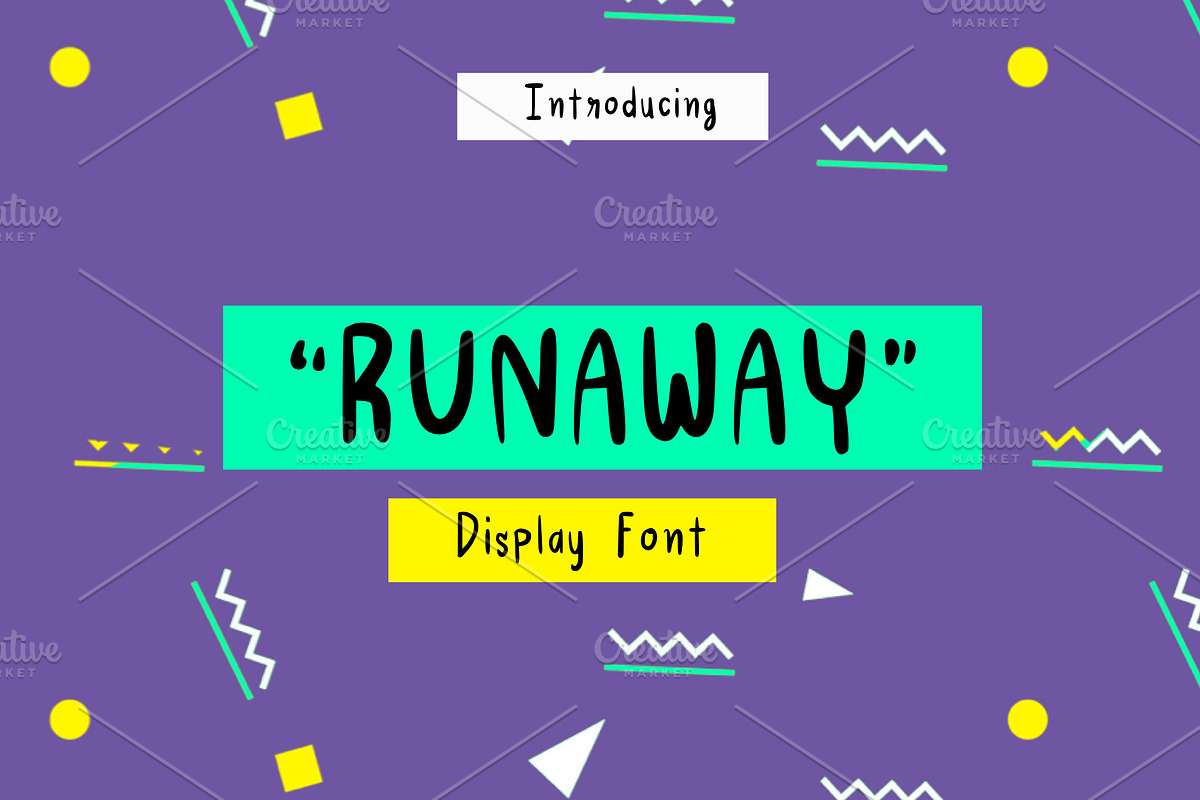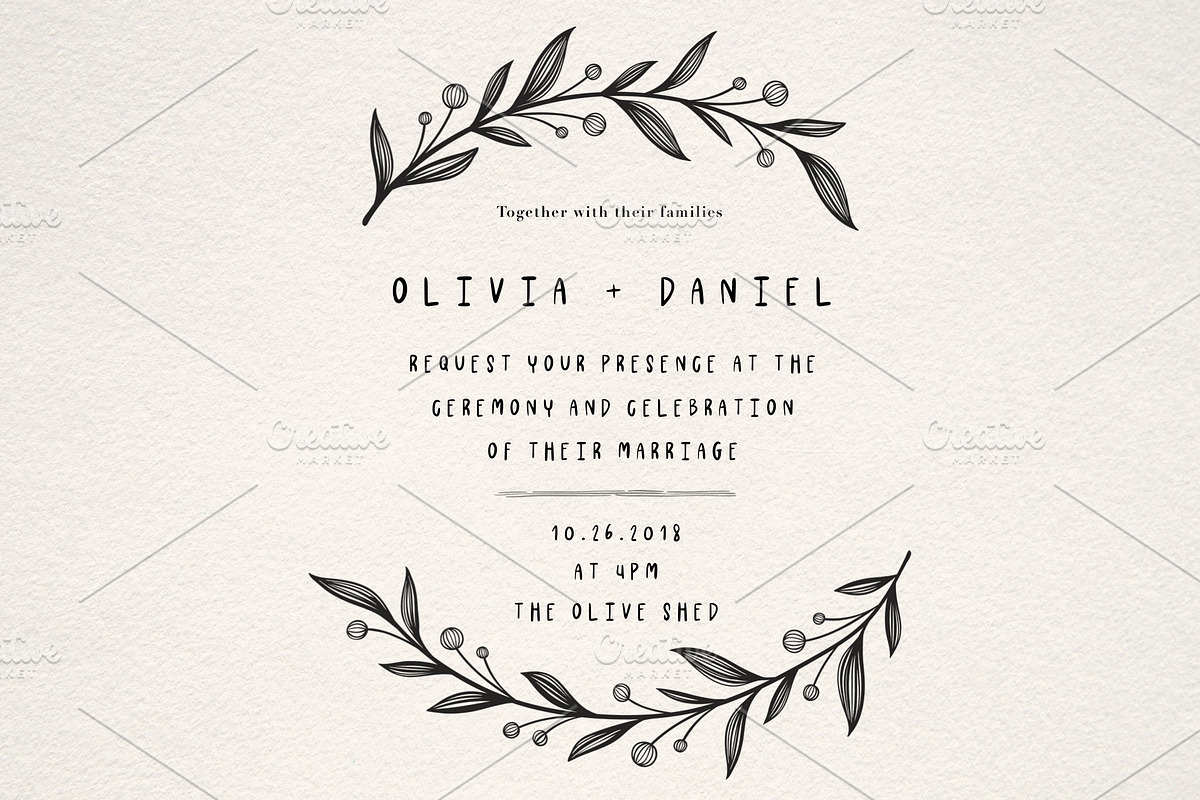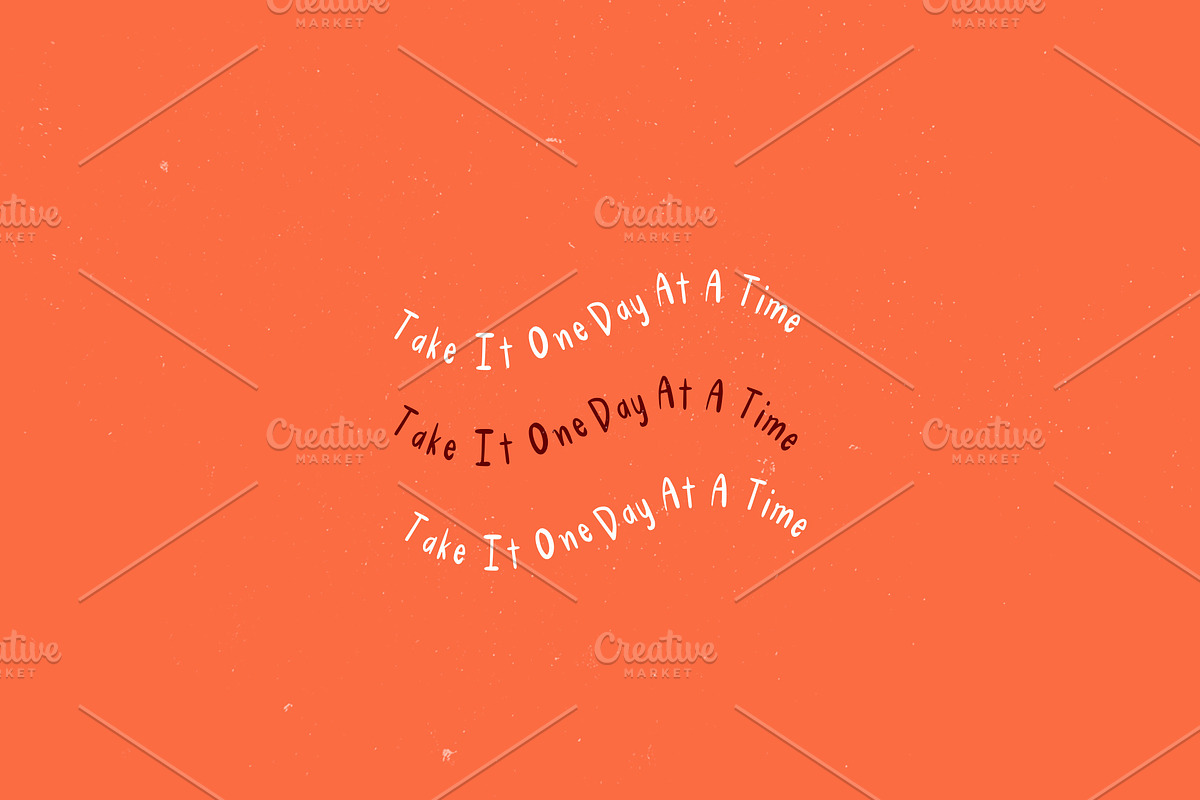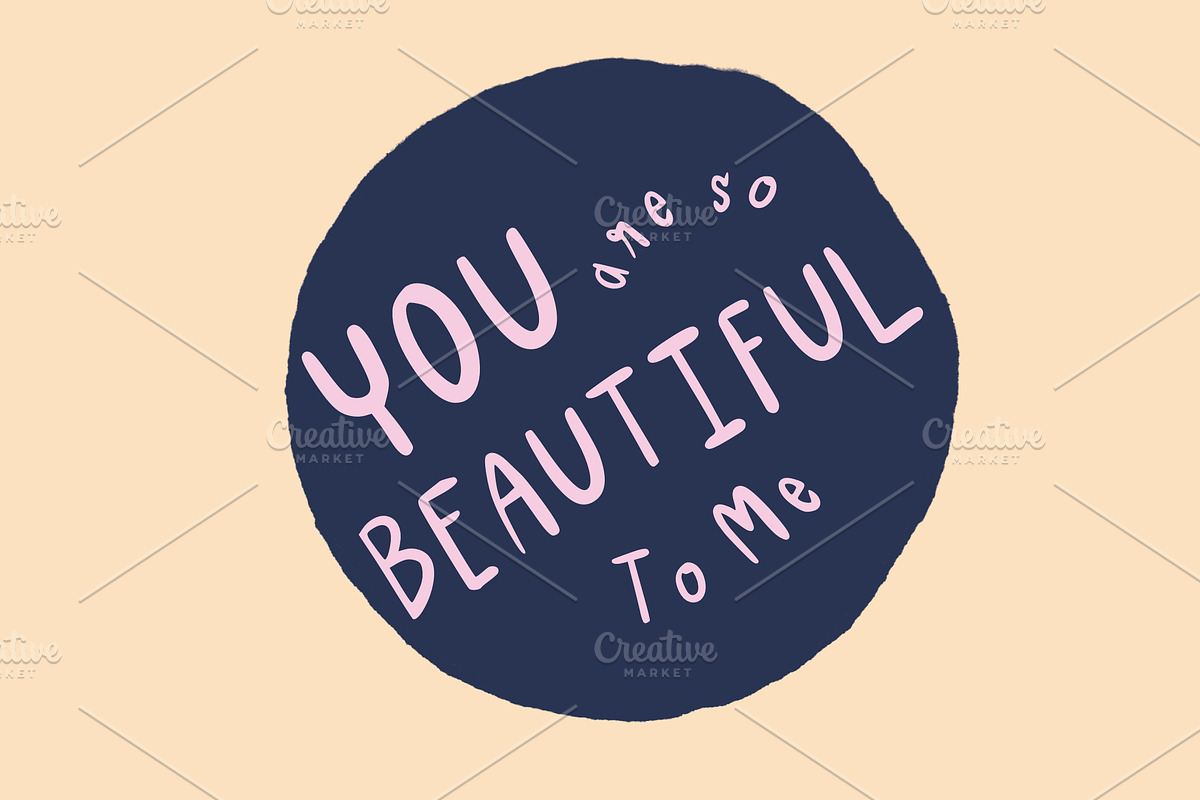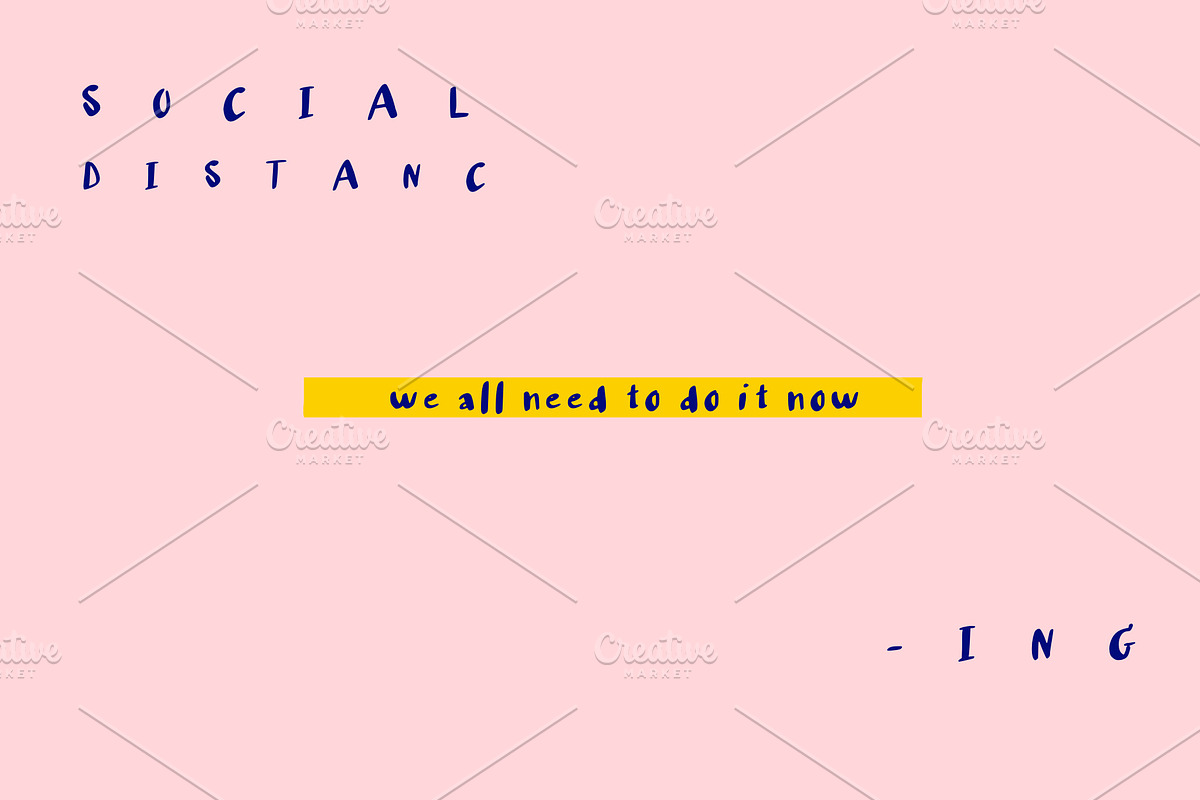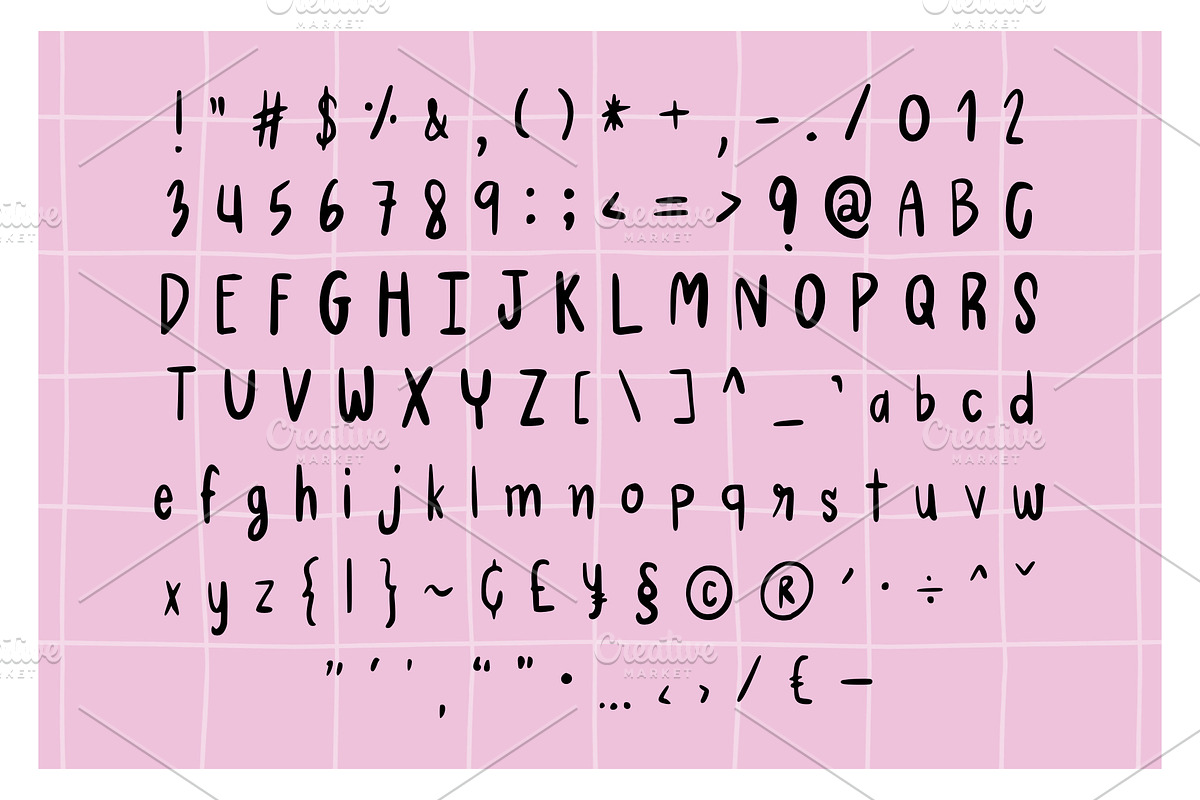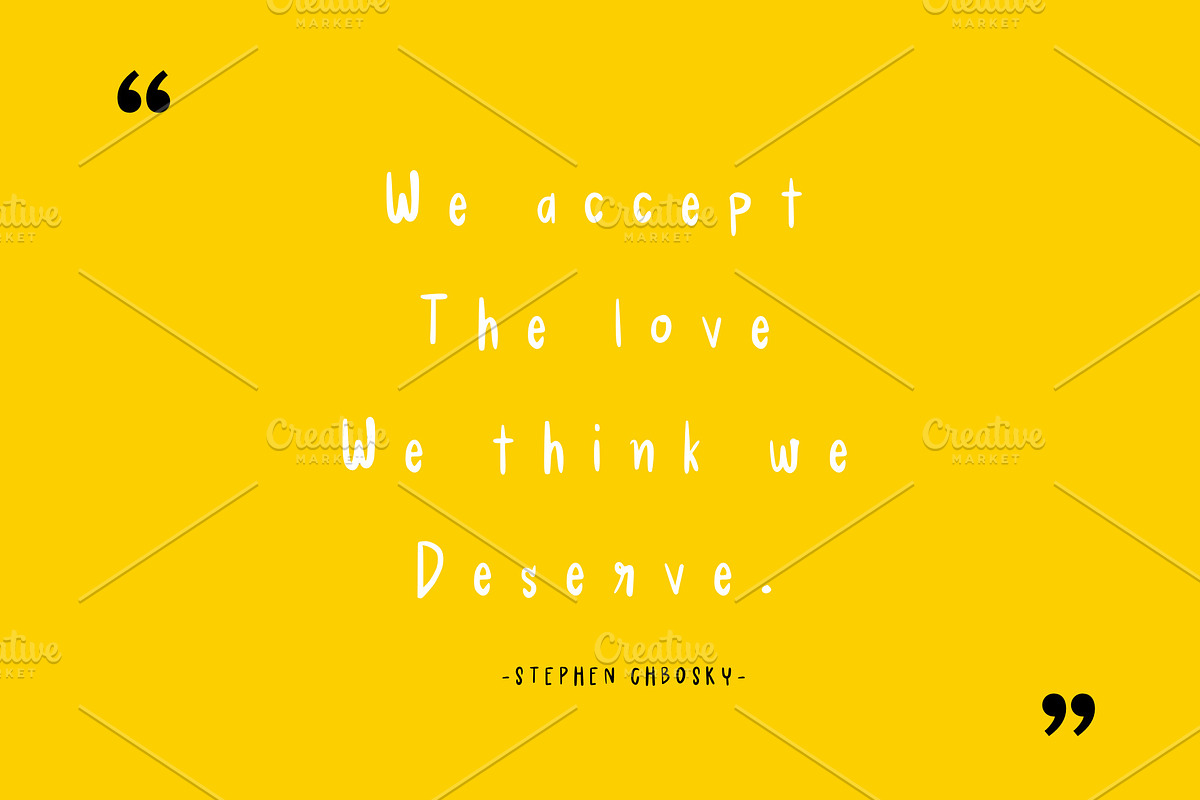
Runaway Display Font
Runaway is a friendly handwriting font. For personal use, website, web header , banner, blog, craft projects, postcard, poster, invitations, labels, social media, Template design and many more.